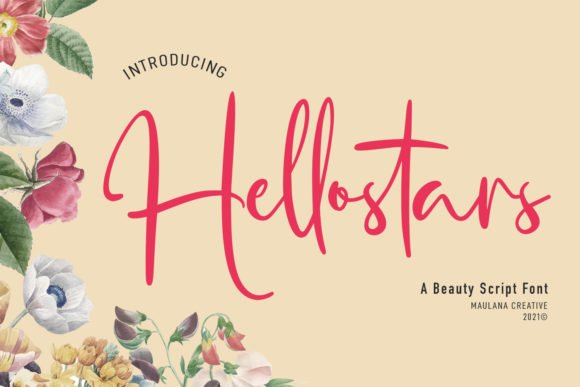
Bring Your Creative Ideas to Life with Hellostars Script Font
Remember that moment when you were brainstorming a new project and suddenly, a burst of inspiration struck? The ideas started flowing, and you couldn’t wait to put them into action. For many creatives, it’s the perfect combination of imagination and typography that sparks the magic. That’s where the Hellostars Script Font comes in – a beautiful, playful script font designed to elevate your most creative ideas.
This lovely script font features charming characters that seem to dance along the baseline, adding a touch of whimsy to any design. Whether you’re a graphic designer, illustrator, or writer, the Hellostars Script Font is a valuable addition to your toolkit. Its versatility and charm make it perfect for a wide range of applications, from social media graphics to blog posts and beyond.
Hellostars Script Font Key Features
- Font Style: Hellostars Script is a beautiful, handwritten font with a unique and elegant touch, perfect for adding a personal touch to your designs.
- Unique Characteristics: Features a mix of cursive and script elements, with a focus on elegance and sophistication, making it ideal for wedding invitations, greeting cards, and other special occasions.
Hellostars Script Font Review
Overall, I think the Hellostars Script Font has a lot of potential, but it also has some limitations. Let’s dive in and see what I mean.
- Beautiful, flowing lines: The font has a lovely, handwritten feel that’s perfect for adding a touch of elegance to your designs.
- Highly legible: Despite its scripty nature, the font is surprisingly easy to read, making it a great choice for body text.
- Customization options: The font comes with a range of styles and weights, giving you plenty of flexibility to tailor it to your design needs.
- Not ideal for small text: While the font is legible, it’s not the best choice for small text sizes, where the lines can start to blur together.
- Limited punctuation support: Some punctuation marks, like apostrophes and commas, can look a bit awkward in this font.
- Not suitable for display headlines: While the font is great for body text, it’s not the best choice for display headlines, where a bolder, more attention-grabbing font is usually needed.
The Hellostars Script Font is a great addition to any designer’s toolkit. While it has some limitations, its beautiful lines and high legibility make it a great choice for a wide range of design projects. With some careful use and planning, this font can add a touch of elegance and sophistication to your designs.
The Hellostars Script Font is ideal for:
1. Creative and artistic projects (e.g. social media posts, flyers, posters).
2. Branding and identity projects (e.g. logos, business cards, letterheads).
3. Titles and headings in presentations and documents.
Tips for Getting the Most Out of the Hellostars Script Font
Alternatives to Hellostars Script Font
Ostrich Sans is a modern, sans-serif script font designed for digital use. It’s perfect for creating a unique and eye-catching visual identity for brands, logos, and advertising materials. Ostrich Sans is more geometric and abstract compared to Hellostars Script Font, which is more fluid and handwritten.